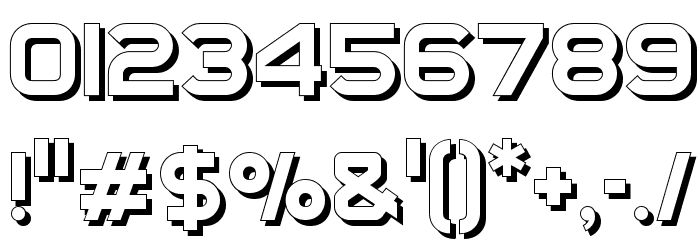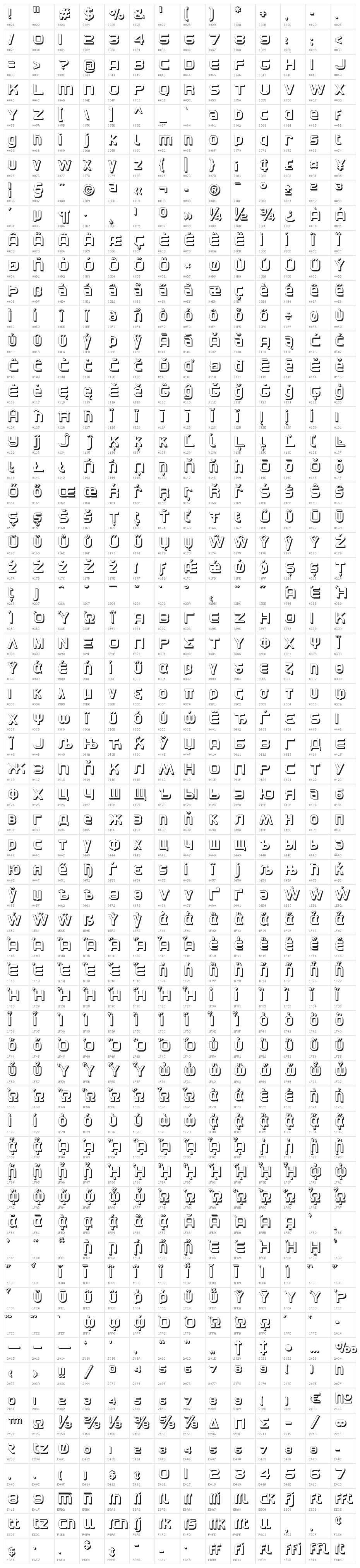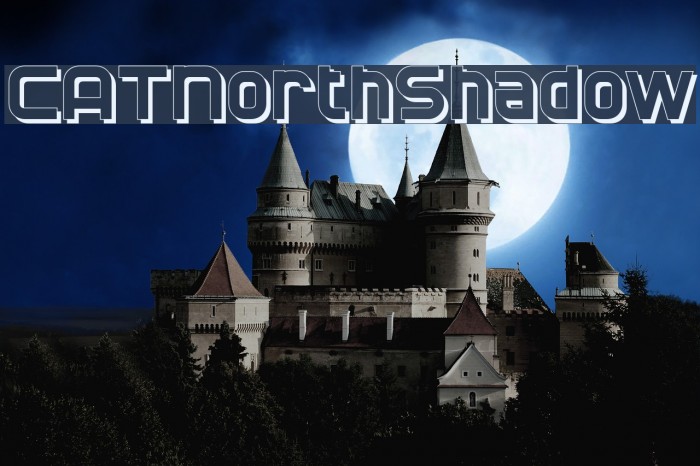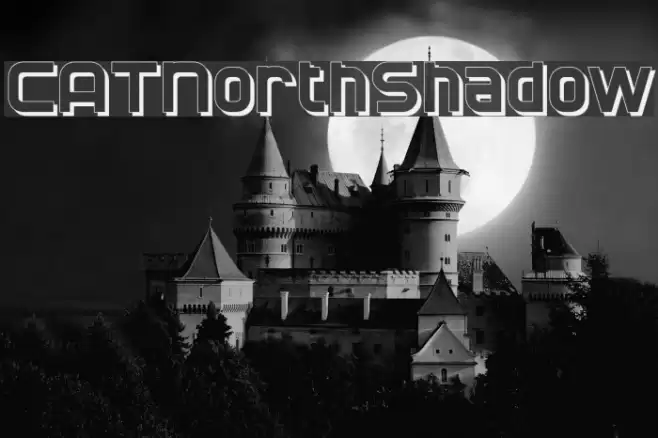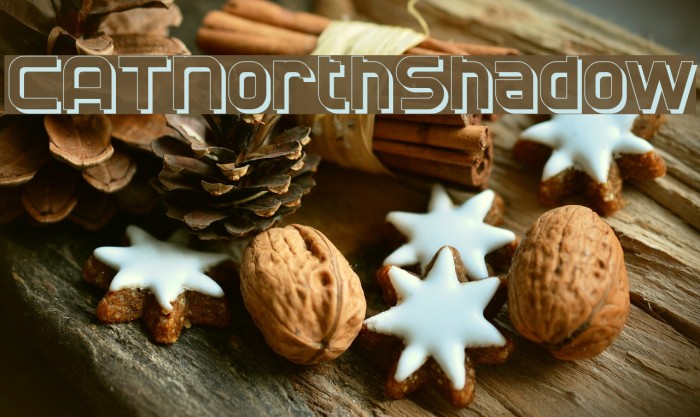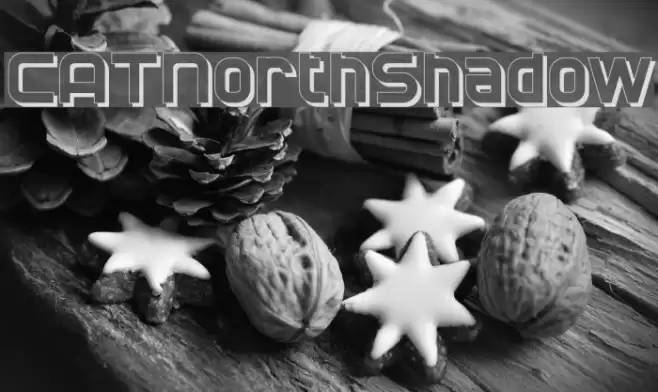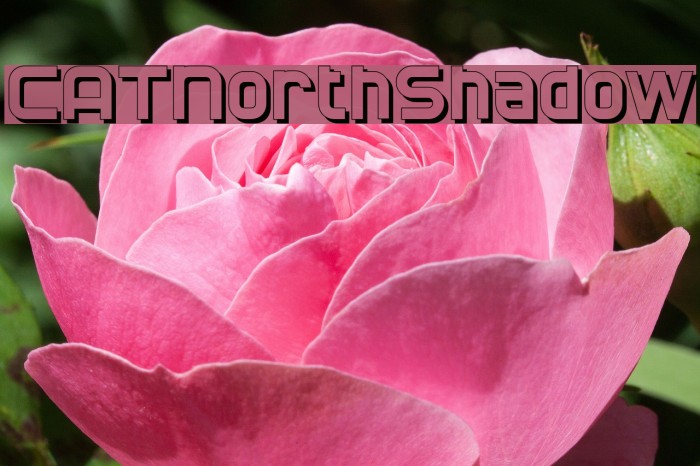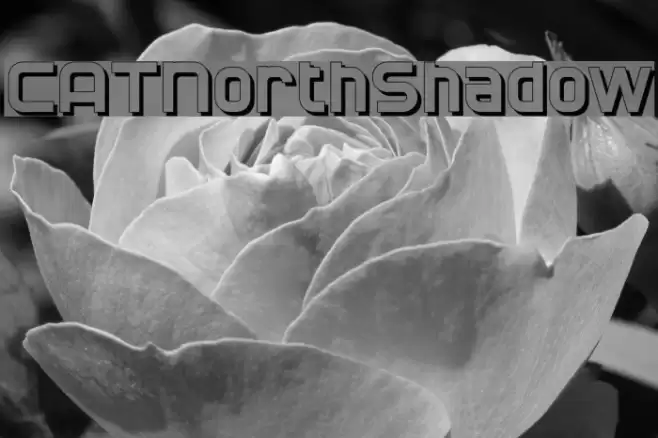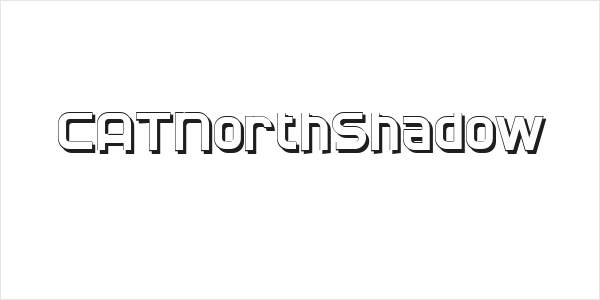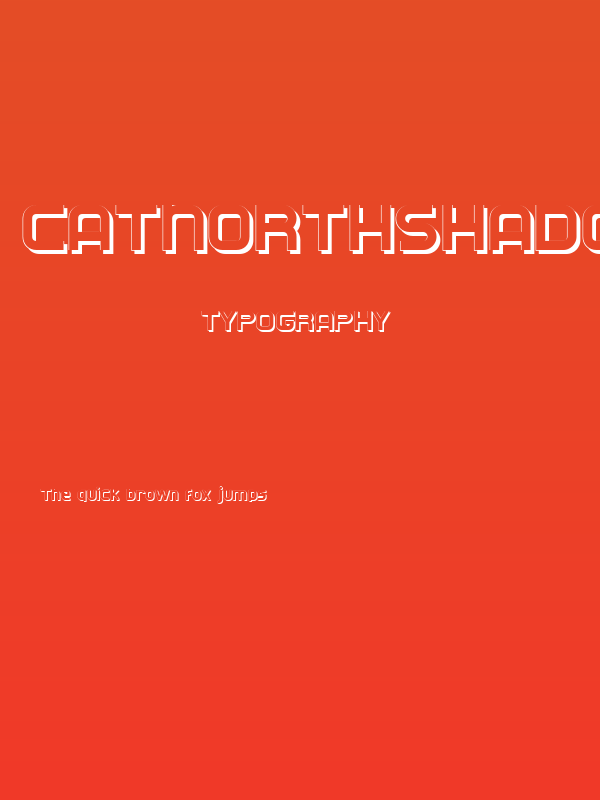
CATNorthShadow Font
CATNorthShadow Description
This font features a bold, geometric design with a distinct shadow effect that gives it a three-dimensional appearance. The characters are structured with clean, angular lines and a consistent thickness, creating a modern and futuristic look. The shadowing adds depth and a sense of movement, making it stand out in any design. The uppercase and lowercase letters maintain a uniform style, while the numerals and special characters complement the overall aesthetic. This font is ideal for projects that require a strong visual impact and a contemporary feel.